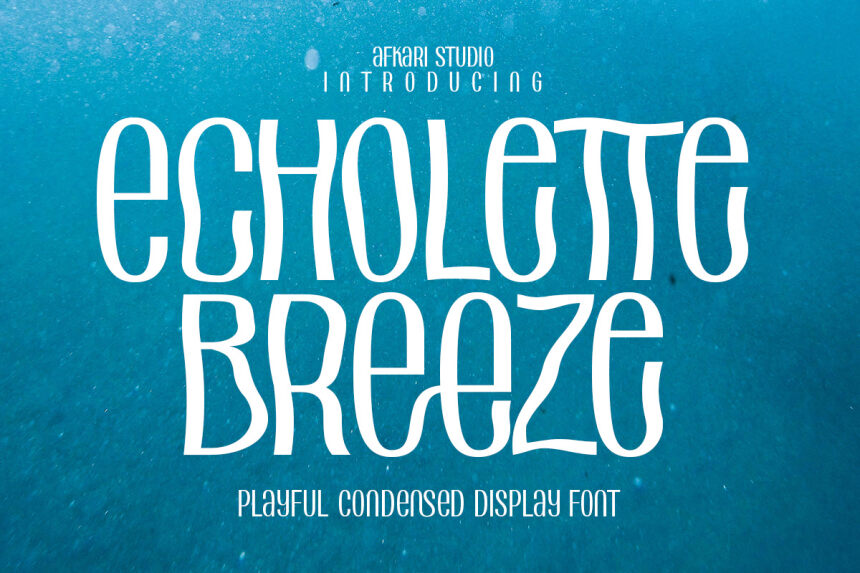
Echolette Breeze font by Afkari Studio is a free distorted display typeface that looks like tall, wind-stretched letters scribbled in ink. Its ultra-narrow shapes, wobbling vertical strokes, and slightly uneven rhythm give it a restless, airy energy-like a handwritten note caught in a gust. Up close, the texture feels scratchy and organic, so every word seems to flicker and sway rather than sit still on the line.